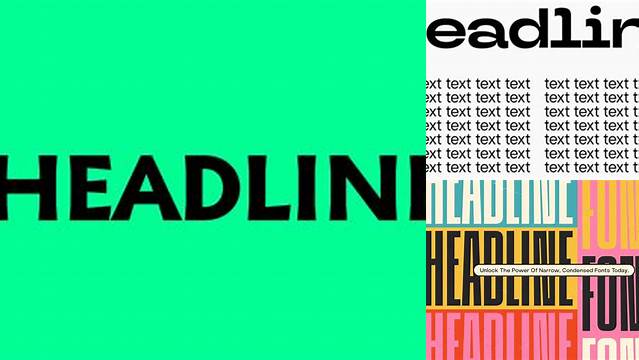
Best Headline Fonts: Attract Readers To Your Website
Choosing the right headline font is crucial for grabbing your audience's attention and making a strong first impression. Your website's headlines are the first thing visitors see, so they need to be visually appealing and easy to read. A well-chosen font can draw readers in and encourage them to explore your content further. Finding that perfect balance between aesthetics and readability can be a game-changer for your website's success. In this article, we'll dive into the world of headline fonts, exploring various options and providing tips on how to choose the best ones for your website. We'll cover everything from classic serif fonts to modern sans-serif options, ensuring you have a solid understanding of what works best for different contexts and audiences. So, let's get started and make your headlines shine!
Headline Font Styles for Websites
When it comes to selecting headline font styles for your website, the options can seem endless. But don't worry, guys! We're here to break it down for you. Different styles evoke different emotions and suit various website themes. For instance, a bold and modern sans-serif font might be perfect for a tech blog, while a classic serif font could be more fitting for a traditional news site. Understanding these nuances will help you make informed decisions. Think about your brand's personality – is it playful and energetic, or sophisticated and professional? Your headline font should reflect this. Also, consider the overall design of your website. Your font should complement the existing colors, imagery, and layout. Let's delve deeper into the specifics of font styles and how they can enhance your website's appeal.
Using Sans-Serif Fonts for Website Headlines
Sans-serif fonts are a popular choice for website headlines due to their clean and modern look. These fonts lack the small decorative strokes (serifs) found in serif fonts, making them appear more streamlined and contemporary. When you're thinking about using sans-serif fonts for website headlines, consider how they communicate simplicity and clarity. They work exceptionally well for tech companies, startups, and blogs that aim for a minimalist design. Some classic sans-serif fonts, like Helvetica and Arial, are always reliable choices, but there are plenty of other exciting options to explore. For example, Open Sans is a versatile font that's easy on the eyes, while Montserrat offers a touch of elegance with its geometric design. Remember, the key is to choose a font that not only looks good but also enhances readability. Your headline fonts need to grab attention and be easily legible, especially on smaller screens.
Serif Headline Fonts for a Classic Look
If you're aiming for a classic and timeless aesthetic on your website, serif headline fonts are the way to go. Serifs are those little strokes at the ends of the letters that give these fonts a more traditional and formal feel. Think of fonts like Times New Roman, Georgia, or Garamond – they exude sophistication and readability. Serif headline fonts are particularly well-suited for news websites, literary blogs, and any platform that wants to convey a sense of authority and trust. However, it's important to choose your serif fonts carefully. Some can appear outdated if not used correctly. Pairing a classic serif font with a modern sans-serif for body text can create a balanced and visually appealing design. The contrast makes your headlines stand out while maintaining overall readability. So, if you want to add a touch of elegance to your site, serif fonts are definitely worth considering.
Display Fonts for Eye-Catching Headlines
For headlines that really pop, display fonts are your secret weapon. These fonts are designed to be attention-grabbing and are often used for titles, logos, and other prominent text elements. When you want eye-catching headlines, display fonts can add a unique touch to your website. They come in a wide range of styles, from bold and dramatic to playful and whimsical. The key with display fonts is to use them sparingly. Overusing them can make your website look cluttered and overwhelming. Instead, reserve them for your main headlines and ensure they complement the rest of your design. Think about the vibe you want to create. A script font can add a touch of elegance, while a blocky, geometric font can convey strength and modernity. Experiment with different options to find what resonates with your brand and grabs your audience's attention.
Combining Different Fonts for Headlines
One of the most effective ways to create visually interesting headlines is by combining different fonts. The trick is to do it well, ensuring the fonts complement each other rather than clash. A popular approach is to pair a serif font with a sans-serif font. For instance, you might use a bold sans-serif for your headlines and a readable serif for your body text, or vice versa. This creates a pleasing contrast that draws the reader's eye. When combining different fonts for headlines, consider the personality of each font. Do they share a similar mood? Do they have contrasting weights or styles? It's often best to stick to two fonts per page to avoid visual clutter. Tools like font pairing websites can help you find combinations that work well together. The right combination can elevate your website's design, making your headlines stand out and your content more engaging.
Best Font Size for Website Headlines
Choosing the best font size for website headlines is crucial for readability and visual hierarchy. Your headlines should be larger than your body text to immediately grab the reader's attention and signal the start of a new section. But how large is too large? A good rule of thumb is to use a font size that's about 2 to 3 times larger than your body text. For example, if your body text is 16px, your headlines might be around 32px to 48px. However, the ideal size can vary depending on the font itself and the overall design of your site. Some fonts appear larger than others even at the same size. It's important to test different sizes on various devices to ensure your headlines are legible and visually appealing on desktops, tablets, and smartphones. A responsive design approach will help you maintain consistency across all platforms.
Font Weight for Headlines: Bold or Regular?
When deciding on the font weight for headlines, you're essentially choosing how thick or thin your text will appear. Bold fonts are heavier and more prominent, making them a popular choice for headlines that need to stand out. Regular weight fonts are lighter and often used for body text. So, should you always go bold for headlines? Not necessarily. The font weight you choose depends on the font itself, the overall design of your site, and the effect you're trying to create. A bold font can make a headline feel strong and impactful, but if overused, it can also become overwhelming. A regular weight font can be elegant and understated, but it might not grab attention as effectively. Experiment with different weights to find the right balance. Sometimes, a semi-bold or medium weight can be the perfect compromise.
Line Height for Headline Readability
Line height plays a significant role in the readability of your headlines. It's the vertical space between lines of text, and getting it right is crucial for a comfortable reading experience. If the line height is too small, the lines can appear cramped and difficult to read. If it's too large, the text can look disconnected. The ideal line height for headline readability typically falls between 1.2 and 1.5 times the font size. For instance, if your headline font size is 32px, a line height of 38px to 48px might work well. However, this is just a guideline. You'll need to adjust the line height based on the specific font you're using and the overall layout of your website. Testing different line heights on various devices will help you find the sweet spot where your headlines are both visually appealing and easy to read.
Letter Spacing for Impactful Headlines
Adjusting letter spacing can significantly impact the look and feel of your headlines. Also known as tracking, letter spacing is the uniform amount of space between letters. Increasing letter spacing can make your headlines feel more open and airy, while decreasing it can create a more condensed and impactful look. For impactful headlines, slightly increasing the letter spacing can often improve readability and create a sense of sophistication. However, it's important to use letter spacing subtly. Too much spacing can make your headlines look disjointed, while too little can make them appear cramped. Experiment with small adjustments to find the right balance. The ideal letter spacing depends on the font itself and the overall design of your site. Play around with different values to see what works best for your specific needs.
Google Fonts for Website Headlines
Google Fonts is a treasure trove of free, high-quality fonts that you can use on your website. It's a fantastic resource for finding the perfect headline fonts without breaking the bank. With hundreds of fonts to choose from, you're sure to find something that matches your brand's personality and style. From classic serifs to modern sans-serifs and playful display fonts, Google Fonts has it all. One of the best things about using Google Fonts is how easy it is to implement them on your website. You can simply link to the Google Fonts stylesheet in your HTML or use a plugin if you're using a CMS like WordPress. Plus, Google Fonts are optimized for web use, so they won't slow down your site's loading speed. So, if you're looking for a great selection of fonts for your headlines, Google Fonts is an excellent place to start.
Adobe Fonts for Professional Headlines
If you're looking for a premium selection of fonts for your website headlines, Adobe Fonts is a fantastic option. Part of the Adobe Creative Cloud suite, Adobe Fonts offers a vast library of high-quality fonts that can add a professional touch to your site. What sets Adobe Fonts apart is its exceptional quality and variety. You'll find everything from elegant serifs to modern sans-serifs and unique display fonts, all designed by top-notch typographers. Using Adobe Fonts for professional headlines ensures that your website has a polished and sophisticated look. Another great thing about Adobe Fonts is its seamless integration with Adobe Creative Cloud apps. If you're already using Photoshop, Illustrator, or other Adobe tools, incorporating these fonts into your designs is a breeze. While it's a subscription-based service, the investment can be well worth it for the quality and selection you get.
Font Pairing Tools for Headline Design
Choosing the right font combination for your headlines can be tricky, but luckily, there are several font pairing tools available to help you out. These tools take the guesswork out of the process by suggesting fonts that complement each other beautifully. Whether you're looking for a classic serif-sans-serif pairing or something more adventurous, font pairing tools for headline design can provide valuable insights. Some popular tools include FontPair, Google Fonts' font pairing suggestions, and Adobe Fonts' recommendations. These tools often work by showing you examples of fonts used together, allowing you to visualize how they will look on your website. They also consider factors like contrast, readability, and overall aesthetic to ensure the fonts you choose work harmoniously. Using a font pairing tool can save you time and effort, helping you create headlines that are both visually appealing and effective.
Mobile-Friendly Headline Fonts
In today's mobile-first world, ensuring your website headlines are readable on smartphones and tablets is crucial. Mobile-friendly headline fonts are designed to look crisp and clear even on small screens. This means choosing fonts that are legible, have good spacing, and don't appear too cramped. Sans-serif fonts are often a great choice for mobile headlines due to their simplicity and clarity. Fonts like Open Sans, Roboto, and Montserrat are particularly well-suited for mobile devices. However, serif fonts can also work well if chosen carefully. When selecting mobile-friendly headline fonts, it's important to test them on different devices and screen sizes to ensure they maintain their readability. Also, consider the font size and line height. Headlines should be large enough to grab attention but not so large that they take up too much screen space. Optimizing your headlines for mobile will enhance the user experience and keep visitors engaged.
Using Custom Fonts for Unique Headlines
For headlines that truly stand out, consider using custom fonts. Custom fonts can add a unique personality to your website, helping you differentiate your brand and create a memorable impression. Unlike standard web fonts, using custom fonts for unique headlines allows you to choose typefaces that perfectly align with your brand's aesthetic. However, there are a few things to keep in mind when using custom fonts. First, make sure you have the proper license to use the font on your website. Second, consider the file size of the font. Large font files can slow down your website's loading speed, which can negatively impact user experience and SEO. To mitigate this, optimize your custom fonts for web use and consider using font subsets to reduce file size. Despite these considerations, the impact of a well-chosen custom font can be significant, adding a touch of sophistication and originality to your headlines.
Headline Font Color and Contrast
The headline font color and contrast you choose can significantly impact readability and visual appeal. A well-chosen color can make your headlines pop, while poor contrast can make them difficult to read. The key is to ensure that your headline font color contrasts sufficiently with the background color. For example, if you have a light background, use a dark font color, and vice versa. This creates a strong visual contrast that makes your headlines stand out. When considering headline font color and contrast, think about your brand's color palette. Your headline colors should complement your brand's overall aesthetic. You might use your primary brand color for headlines to reinforce brand recognition. However, always prioritize readability. A visually appealing color is useless if visitors can't easily read your headlines. Experiment with different color combinations to find what works best for your site.
Headline Font Kerning and Tracking
Kerning and tracking are two typographic adjustments that can significantly enhance the appearance of your headlines. Kerning refers to the spacing between individual letter pairs, while tracking (also known as letter spacing) is the uniform spacing between all letters in a word or phrase. Adjusting headline font kerning and tracking can improve readability and create a more polished look. Poor kerning can make certain letter combinations appear too close or too far apart, which can be distracting. Tracking can be used to create a more open or condensed feel. Slightly increasing the tracking can often improve the readability of headlines, especially on screens. However, it's important to use these adjustments subtly. Overdoing it can make your headlines look unnatural. Experiment with small adjustments to find the right balance. The ideal kerning and tracking values will vary depending on the font you're using.
Headline Fonts for Different Website Themes
The headline fonts you choose should align with the overall theme and purpose of your website. Different themes call for different typographic styles. For example, a minimalist website might benefit from a clean sans-serif font, while a traditional blog might look best with a classic serif font. When selecting headline fonts for different website themes, consider the personality and tone you want to convey. A tech blog might use a bold, modern font, while a wedding website might opt for an elegant script font. It's also important to think about your target audience. What fonts will resonate with them? What fonts will be easy for them to read? If your website is image-heavy, ensure your headlines don't clash with the visuals. A versatile font that works well in various contexts is often a good choice. Ultimately, your headline fonts should enhance your website's design and contribute to a cohesive user experience.
Headlines Fonts and SEO
Choosing the right headline fonts can indirectly impact your website's SEO. While search engines don't directly rank websites based on font choice, readable and engaging headlines can improve user experience, which is a crucial factor in SEO. When users can easily read and understand your headlines, they're more likely to stay on your site, explore your content, and potentially share it with others. This can lead to lower bounce rates, higher time on site, and increased social sharing – all positive signals for search engines. Therefore, headlines fonts and SEO are more connected than you might think. Prioritize readability and visual appeal when selecting your headline fonts. Also, ensure your headlines are properly formatted with HTML heading tags (H1, H2, H3, etc.). These tags help search engines understand the structure and content of your pages. By creating compelling and readable headlines, you can improve user engagement and boost your website's SEO performance.
Headline Fonts and Branding
Your headline fonts play a crucial role in your website's branding. They contribute to the overall visual identity and help reinforce your brand's personality. The fonts you choose should align with your brand's values, tone, and aesthetic. Are you aiming for a modern and innovative brand image? A bold sans-serif font might be a great choice. Do you want to convey a sense of tradition and trustworthiness? A classic serif font could be more appropriate. When considering headline fonts and branding, think about how your font choices will resonate with your target audience. Your fonts should create a consistent and recognizable visual experience across your website and other marketing materials. It's often helpful to create a brand style guide that outlines your font choices, color palette, and other design elements. This ensures consistency and helps maintain a strong brand identity.
Testing Headline Fonts for User Experience
Testing headline fonts is an essential step in ensuring a positive user experience on your website. What looks good in theory might not always translate well in practice. That's why it's important to test different fonts on various devices and with different users. User testing can reveal valuable insights into how your headline fonts are perceived. Do they grab attention? Are they easy to read? Do they align with your brand's personality? There are several ways to testing headline fonts for user experience. You can use A/B testing to compare the performance of different fonts, gather feedback from users through surveys or interviews, or simply ask friends and colleagues for their opinions. Pay attention to factors like readability, visual appeal, and overall user engagement. The goal is to choose headline fonts that enhance the user experience, making your content more enjoyable and accessible.
Best Headline Fonts for Blogs
Choosing the best headline fonts for blogs involves finding a balance between readability, visual appeal, and branding. Your blog headlines should grab attention and entice readers to delve into your content. However, they also need to be easy to read, especially on smaller screens. Popular choices for blog headlines include sans-serif fonts like Open Sans, Montserrat, and Roboto, which offer a clean and modern look. Serif fonts like Playfair Display and Merriweather can also work well, adding a touch of elegance and tradition. When selecting best headline fonts for blogs, consider your blog's niche and target audience. A tech blog might opt for a bolder, more contemporary font, while a lifestyle blog might choose a softer, more approachable font. It's also important to think about font pairing. Combining a striking headline font with a readable body font can create a visually appealing and engaging reading experience.
Headline Font Resources and Websites
Finding the perfect headline font can feel like a daunting task, but fortunately, there are numerous headline font resources and websites available to help you. These resources offer a wealth of fonts, from free options to premium choices, as well as tools and tips for font pairing and typography. Some popular websites for finding headline fonts include Google Fonts, Adobe Fonts, FontPair, and MyFonts. Headline font resources and websites like these allow you to browse fonts by style, weight, and other criteria, making it easier to narrow down your options. Many of these sites also offer font previews, so you can see how a font will look in different contexts. Additionally, some resources provide articles and tutorials on typography best practices, helping you make informed decisions about your font choices. By leveraging these resources, you can find the perfect headline fonts to enhance your website's design and readability.
Future Trends in Headline Typography
The world of typography is constantly evolving, and staying up-to-date with the future trends in headline typography can help your website maintain a fresh and modern look. One emerging trend is the use of variable fonts, which allow for greater flexibility and customization. Variable fonts can adjust weight, width, and other parameters, offering a wide range of styles within a single font file. Another trend is the resurgence of retro and vintage fonts, adding a nostalgic touch to headlines. Future trends in headline typography also include the increased use of bold and oversized fonts, designed to grab attention and make a statement. Additionally, more websites are experimenting with custom and hand-drawn fonts to create a unique and personalized brand identity. As technology advances and design preferences shift, keeping an eye on these trends will help you make informed decisions about your headline font choices.
Readability Best Practices for Headlines
Ensuring your headlines are readable is crucial for engaging your audience and conveying your message effectively. There are several readability best practices for headlines that can help you achieve this. First and foremost, choose fonts that are easy to read, even at small sizes. Avoid overly decorative or script fonts for headlines, as they can be difficult to decipher. Opt for clean sans-serif or classic serif fonts instead. Additionally, pay attention to font size, weight, and contrast. Headlines should be larger and bolder than your body text to stand out, and the font color should contrast sufficiently with the background. Other readability best practices for headlines include using appropriate line height and letter spacing, as well as avoiding excessive text styling, such as underlines or italics. By following these guidelines, you can create headlines that are both visually appealing and easy to read, enhancing the user experience on your website.
Font Licensing for Website Headlines
When choosing fonts for your website headlines, it's important to understand font licensing. Font licenses dictate how you are allowed to use a particular font, and violating these terms can lead to legal issues. Most fonts come with a specific license that outlines whether you can use the font for commercial purposes, embed it in a website, or modify it. Free fonts, such as those available on Google Fonts, typically have open licenses that allow for broad usage. However, premium fonts often have more restrictive licenses. Font licensing for website headlines usually requires you to purchase a web font license, which permits you to use the font on your website. Before using any font, carefully review its license agreement to ensure you are in compliance. If you're unsure about the terms of a license, it's best to consult with a legal professional or contact the font foundry directly.
Common Headline Font Mistakes to Avoid
Choosing the wrong fonts for your headlines can negatively impact your website's design and readability. There are several common headline font mistakes to avoid to ensure your headlines are effective. One mistake is using fonts that are too decorative or difficult to read. While unique fonts can add personality, prioritize readability above all else. Another common mistake is using too many different fonts on a single page. This can create a cluttered and inconsistent look. Stick to two or three fonts at most. Common headline font mistakes to avoid also include using font sizes that are too small or too large, as well as neglecting proper contrast between the font color and background. Additionally, avoid using fonts that don't align with your brand's personality or website theme. By being mindful of these common mistakes, you can create headlines that are visually appealing, readable, and consistent with your overall branding.
Designing Headlines with Font Psychology
Font psychology explores how different typefaces can evoke certain emotions and associations. Understanding font psychology can help you choose headline fonts that effectively communicate your message and resonate with your target audience. For example, serif fonts often convey a sense of tradition, authority, and trustworthiness, while sans-serif fonts tend to evoke modernity, simplicity, and clarity. Script fonts can add a touch of elegance and creativity, while display fonts can create a bold and attention-grabbing effect. Designing headlines with font psychology in mind involves carefully considering the message you want to convey and the emotions you want to evoke. Choose fonts that align with your brand's personality and values. Also, think about your target audience. What fonts will appeal to them? By leveraging the principles of font psychology, you can create headlines that are not only visually appealing but also psychologically effective.
Headline Fonts and Accessibility
Ensuring your headlines are accessible to all users, including those with disabilities, is crucial for creating an inclusive website. Headline fonts and accessibility are closely linked, as font choices can significantly impact readability for users with visual impairments or other disabilities. When selecting headline fonts, prioritize readability and contrast. Choose fonts that are easy to read, even at small sizes, and ensure there is sufficient contrast between the font color and background. Avoid using overly decorative or script fonts, as these can be difficult to decipher for some users. Other headline fonts and accessibility considerations include using appropriate font sizes and line heights, as well as avoiding text styling that can hinder readability, such as underlines or italics. Additionally, ensure your website is compatible with assistive technologies, such as screen readers. By following accessibility guidelines, you can create headlines that are inclusive and user-friendly for everyone.